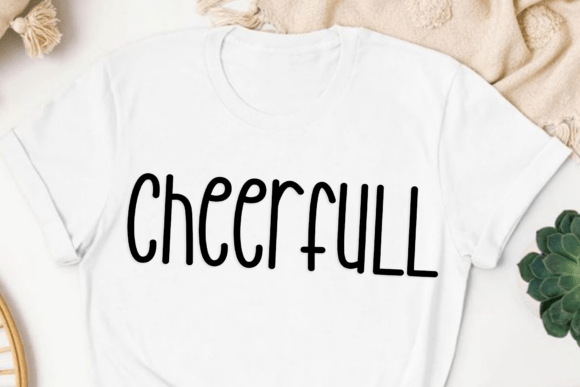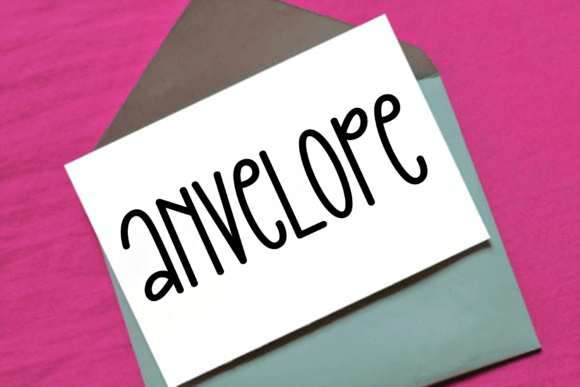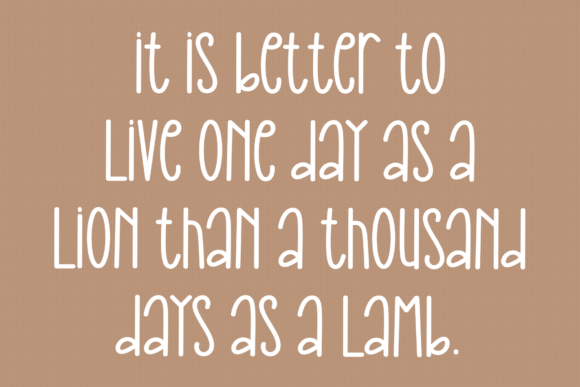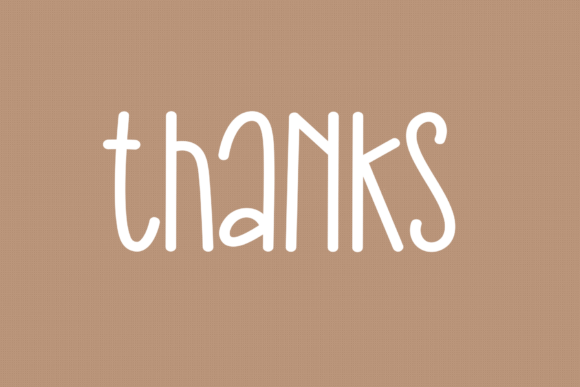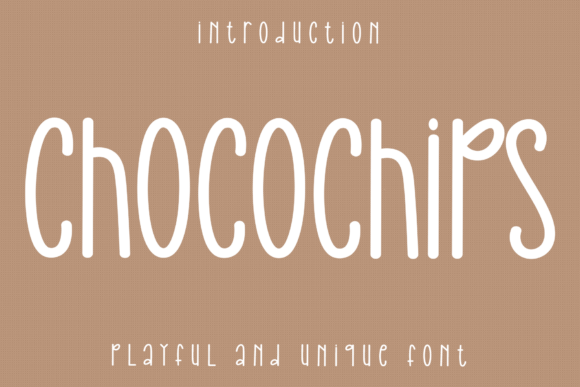
Introducing Chocochips Font: The Perfect Blend of Elegance and Whimsy
Are you tired of using the same old fonts for your designs? Look no further than Chocochips Font, a beautiful, modern script typeface that effortlessly blends elegance with a personal, handwritten feel. This stunning font is perfect for conveying warmth and intimacy, making it ideal for designers and crafters looking to add a touch of personality to their work.
A Modern Script Typeface with a Personal Touch
Chocochips Font is a unique and stylish script typeface that is sure to make your designs stand out. Its modern and elegant feel makes it perfect for a wide range of applications, from wedding invitations and branding materials to social media graphics and more. The font’s handwritten feel also gives it a personal and approachable vibe, making it ideal for designers who want to add a touch of warmth and personality to their work.
Key Features of Chocochips Font
- Beautiful, modern script typeface: Chocochips Font features a stunning, modern script design that is sure to impress.
- Elegant and personal: The font’s elegant feel makes it perfect for formal applications, while its handwritten feel adds a personal touch.
- Warm and intimate: Chocochips Font is perfect for conveying warmth and intimacy, making it ideal for designs that require a personal touch.
- High-quality design: The font is designed with high-quality craftsmanship in mind, ensuring that it looks great in any application.
Why Choose Chocochips Font?
So why choose Chocochips Font for your next design project? Here are just a few reasons:
- Unique and stylish: Chocochips Font is a one-of-a-kind font that is sure to make your designs stand out.
- Versatile: The font is perfect for a wide range of applications, from formal to informal.
How to Use Chocochips Font in Your Designs
Using Chocochips Font in your designs is easy. Here are a few tips to get you started:
- Pair it with other fonts: Chocochips Font looks great when paired with other fonts, such as sans-serif fonts or serif fonts.
- Use it for headings and titles: The font’s elegant feel makes it perfect for headings and titles.
- Add a personal touch: Use Chocochips Font to add a personal touch to your designs, such as in wedding invitations or social media graphics.
In conclusion, Chocochips Font is a beautiful, modern script typeface that is perfect for designers and crafters looking to add a touch of elegance and whimsy to their work. Its unique blend of elegance and personality makes it ideal for a wide range of applications, from formal to informal. With its high-quality design and ease of use, Chocochips Font is a great choice for anyone looking to elevate their designs.